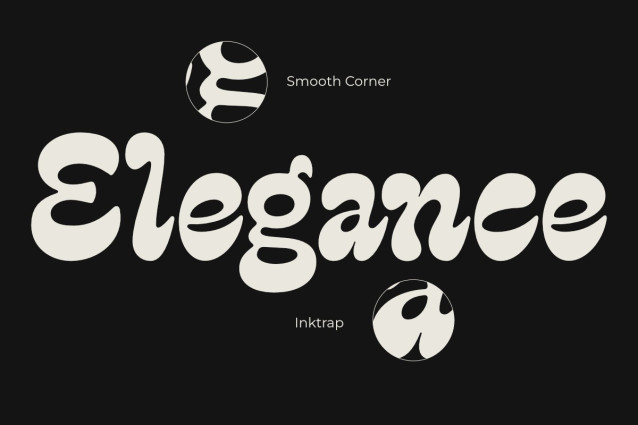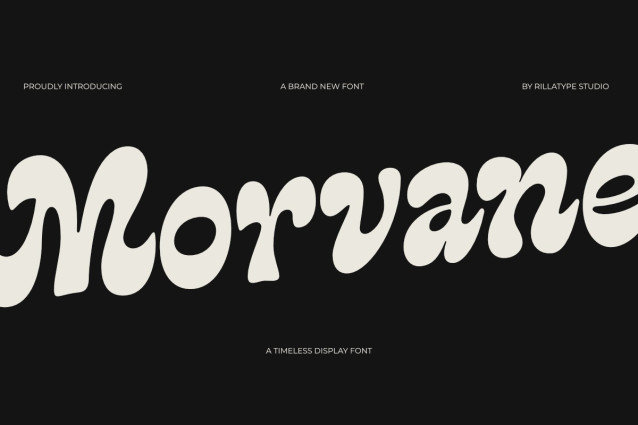
Morvane Font
Morvane Font is an elegant script typeface with soft curves and a smooth flow, designed to create a refined and modern look. Perfect for branding, logos, invitations, and packaging, Morvane adds a subtle touch of luxury to any design.